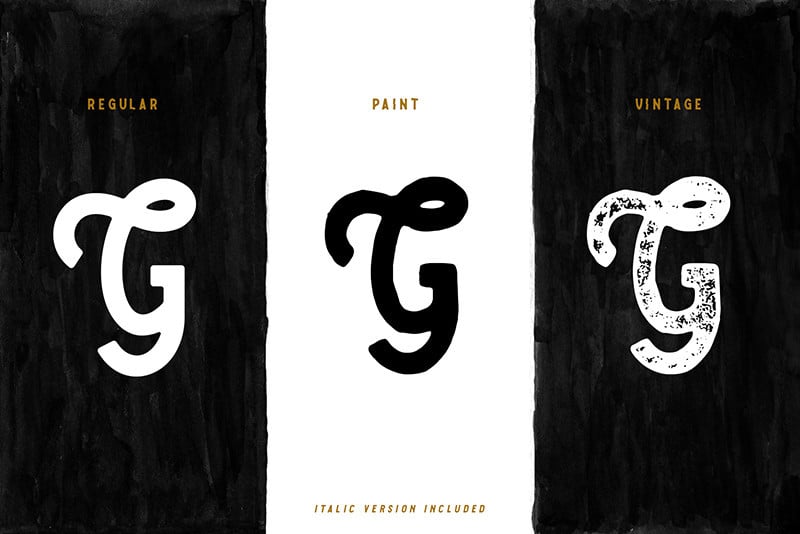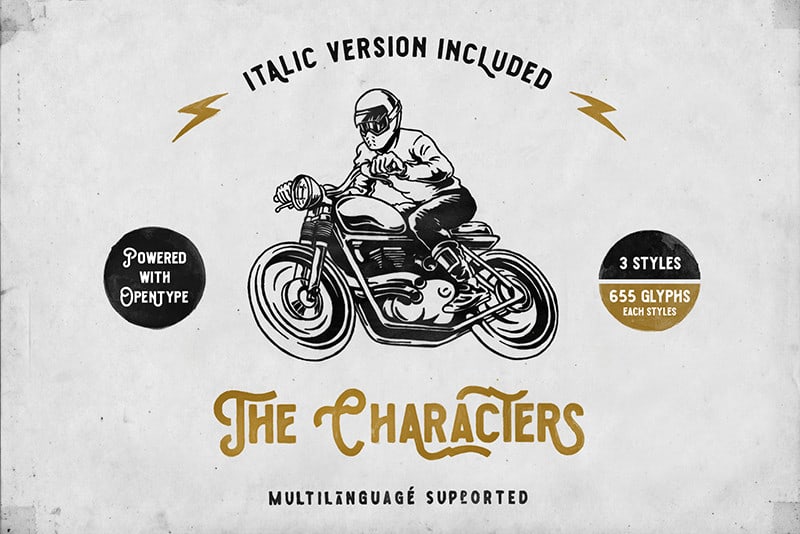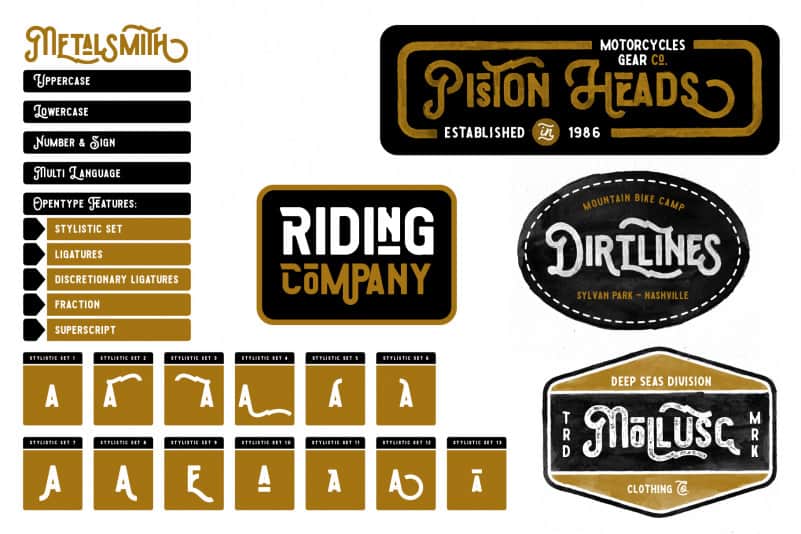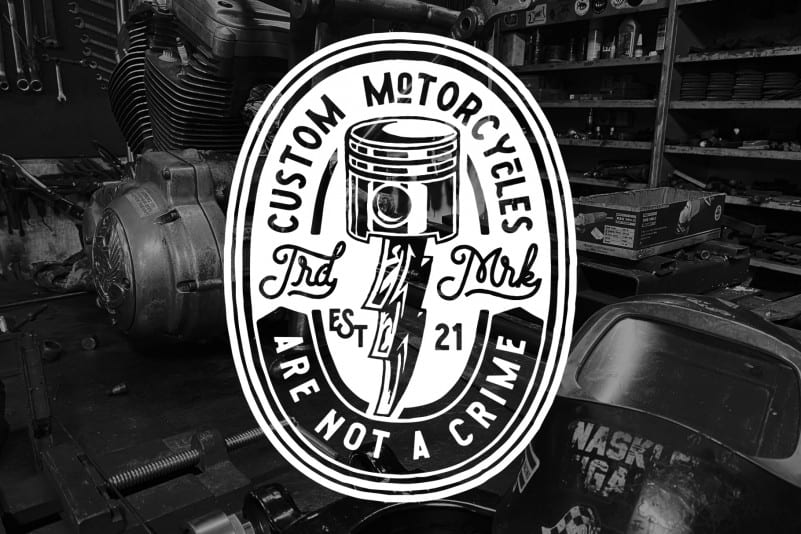
Metalsmith Display Font
Say hi to “Metalsmith Display” font family, a stylish custom culture typeface.
Started from the enthusiasm of custom motorcycles, artsy looks of hand made typefaces & illustrations, along with the freedom vibes that came with it, become the first motivation in making this Metalsmith typeface.